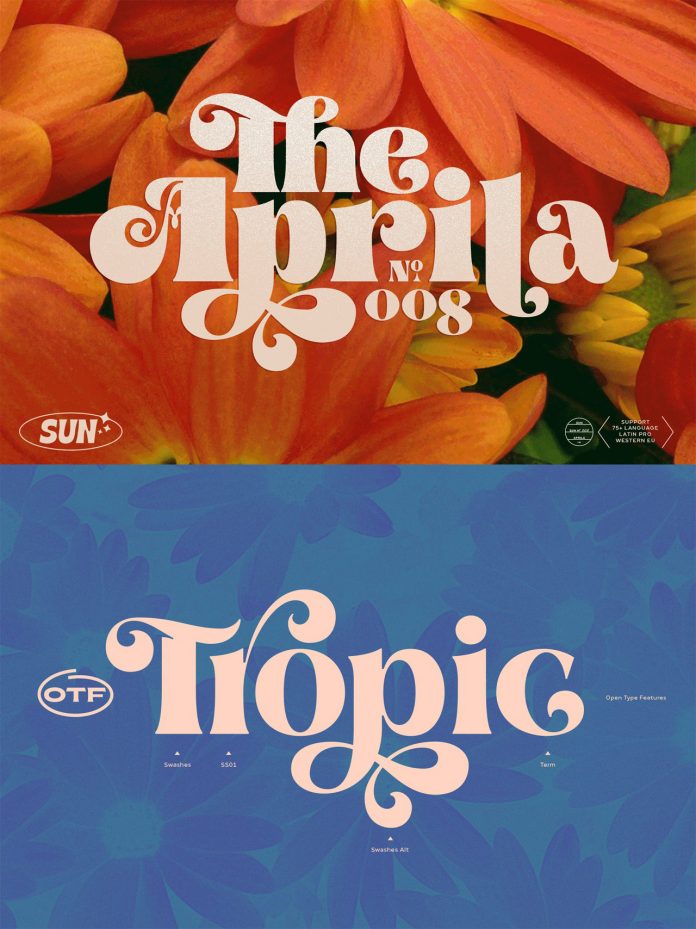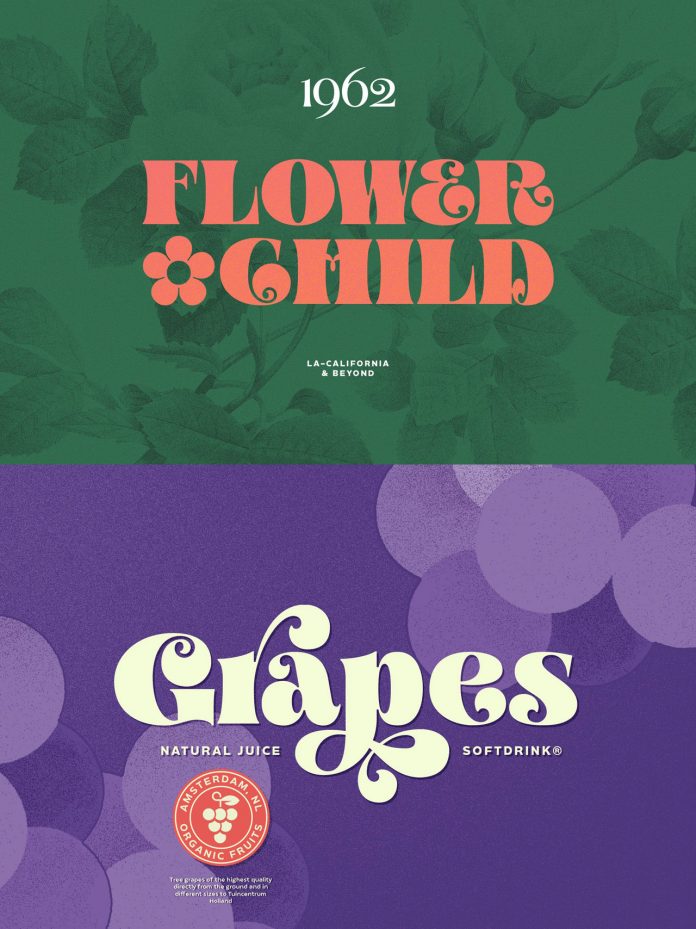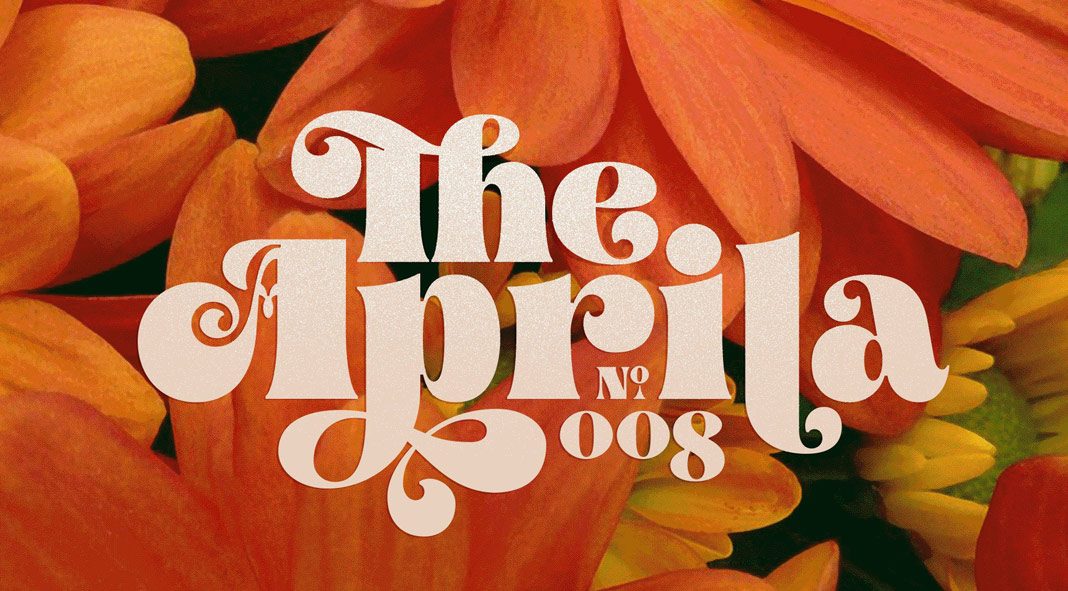
With the Aprila font family, you can add the spirit of summer and flower power to your typographic design.
Designed and published by Studio Sun, Aprila is a new font family inspired by the 1960s Hippies Movement. The family comes with 6 weights and supports more than 75 languages. Equipped with elegant swashes and serifs as well as a curvy typeface, this family will add a touch of summer and happiness to your design. It is now available for a very low budget at Creative Market—just follow the link below for further information.